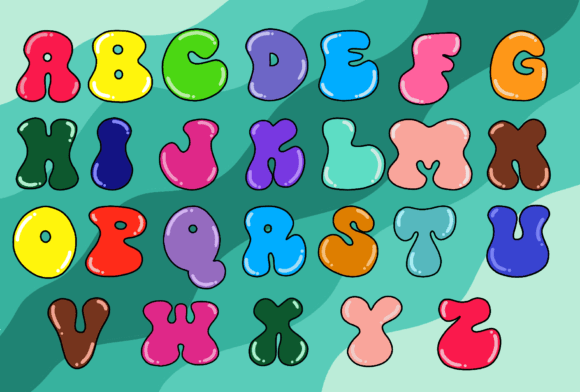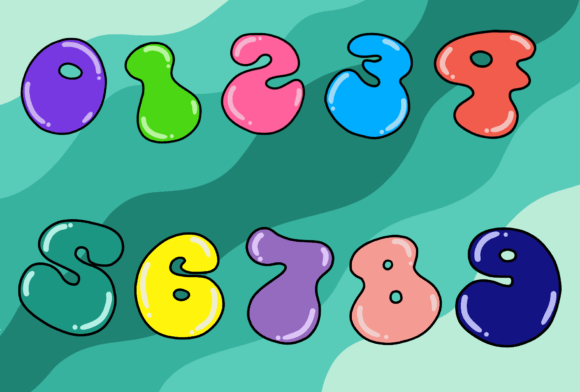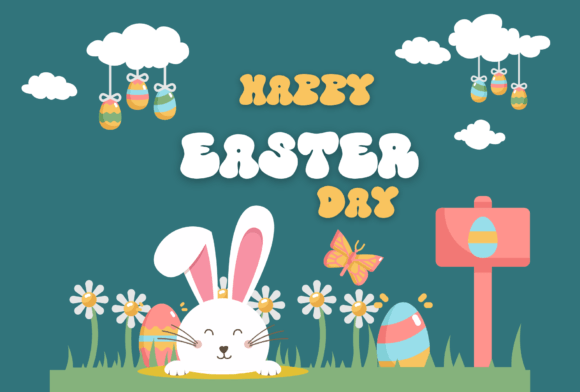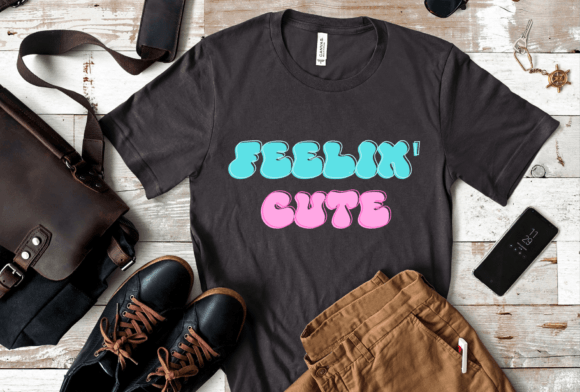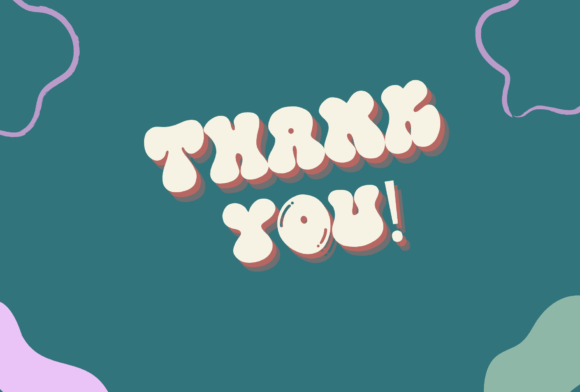
Introduction to Groovy Color Font
Get ready to groove with our colorful and funky display font.
With its playful curves, vibrant colors, and retro-inspired design, Groovy Color is perfect for creating a fun and energetic look in your designs Ideal for posters, album covers, and any project that requires a touch of nostalgia and creativity.
Key Features of Groovy Color Font
Why Choose Groovy Color Font?